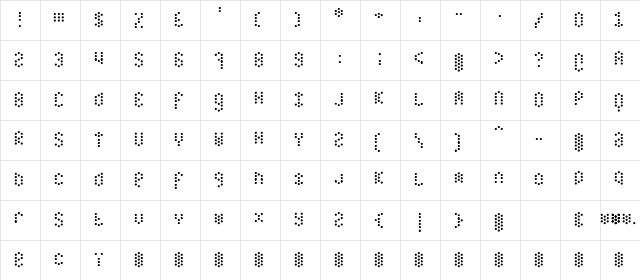
honey Light Free Font
honey Light
honey Family
Design Context for honey
honey is a composed and adaptable typeface that performs quietly and consistently across a wide range of design contexts. Its slender proportions lend an understated elegance to any composition.